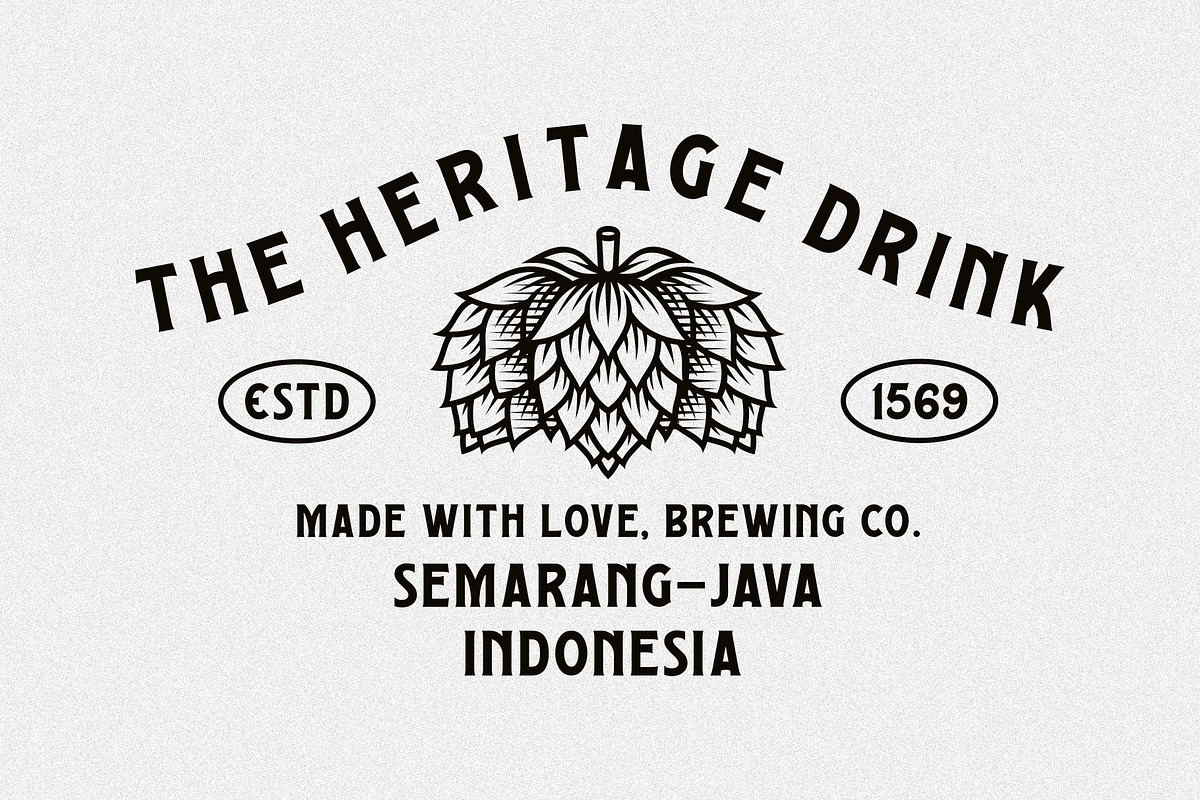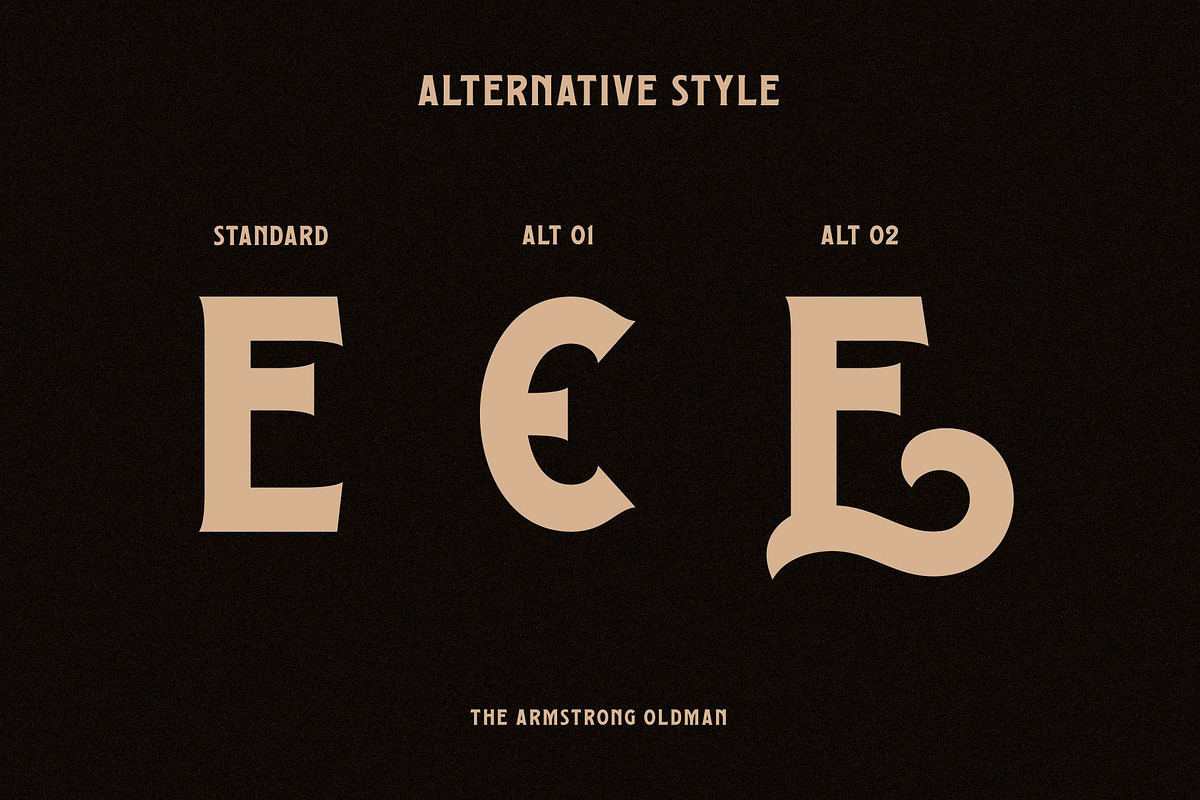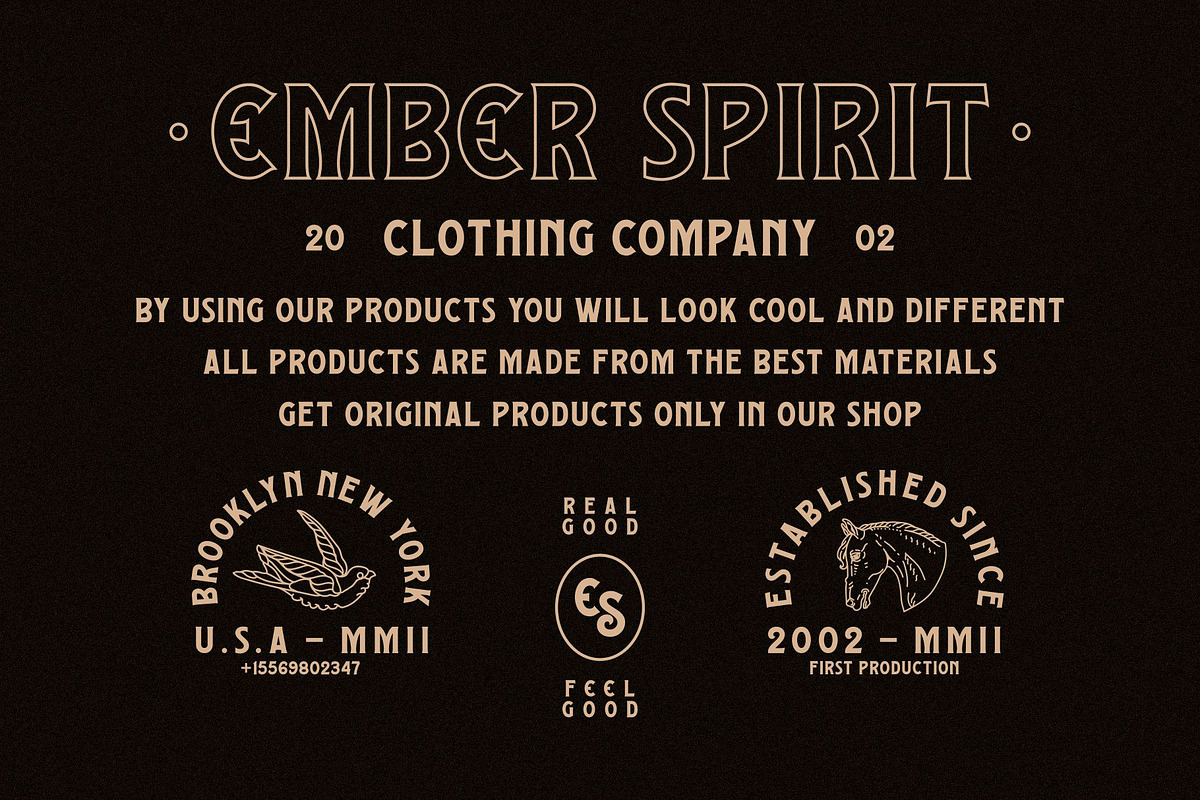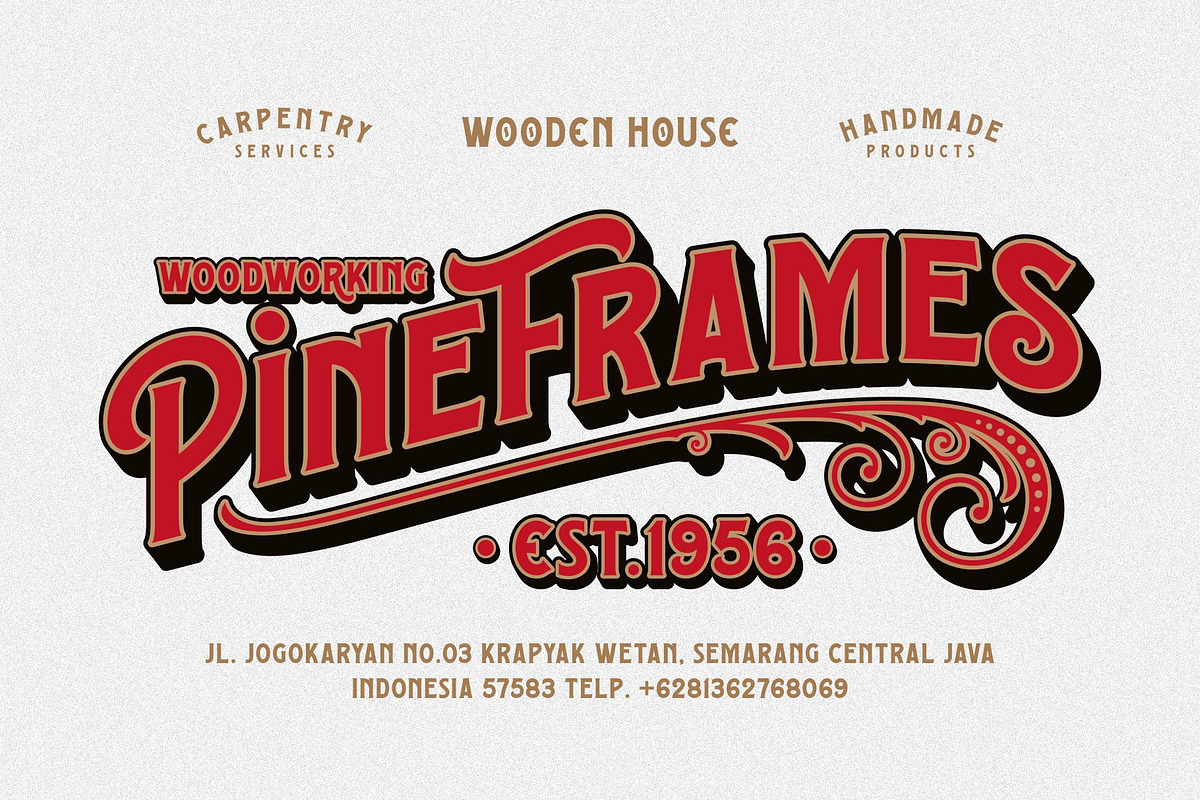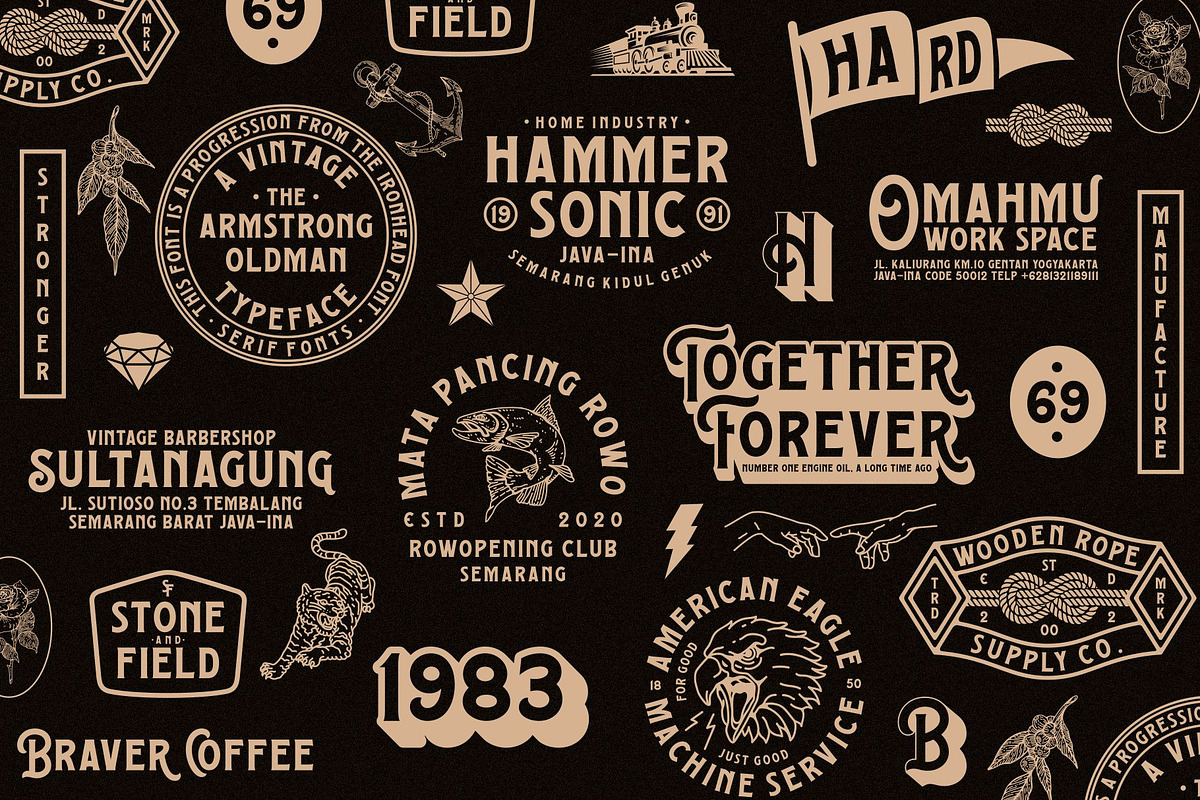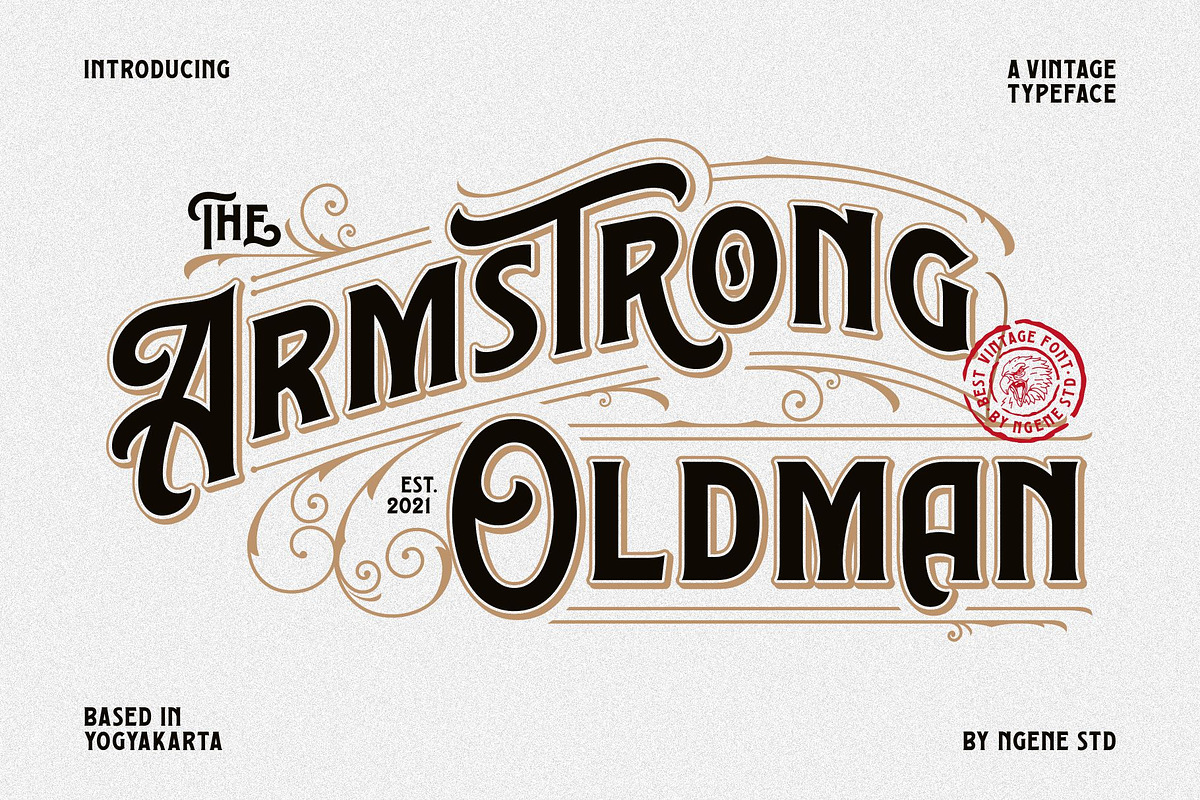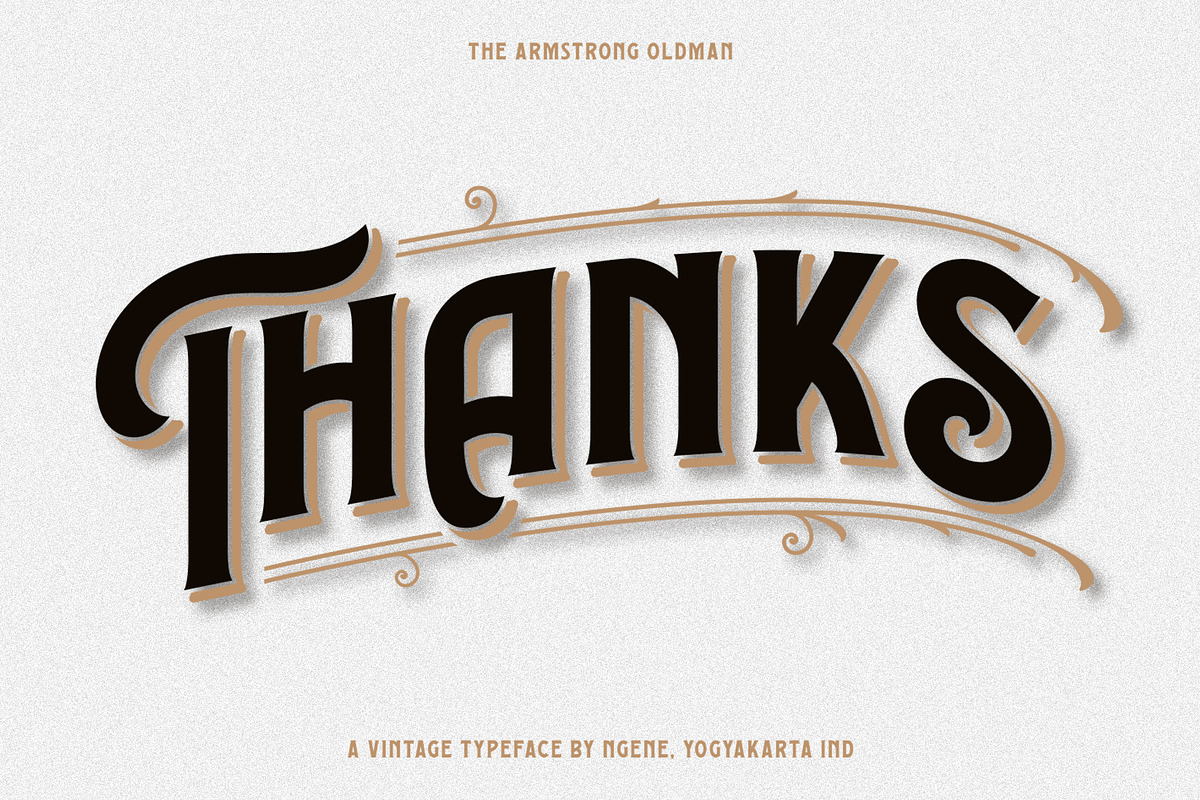
The Armstrong Oldman
The Armstrong Oldman is a refinement of the Ironhead Serif font which was developed with both upper and lowercase font styles. This font will be perfect to incorporate into your designs, especially vintage designs. The illustration I'm using for the display above is a bonus illustration of the Harrison, Roosevelt, Ironhead and The Brone fonts. This font is great for logos, badges, clothing, posters and more. This font comes with opentype and truetype features as well as many alternative styles to enhance your designs. This font also supports multilingual.